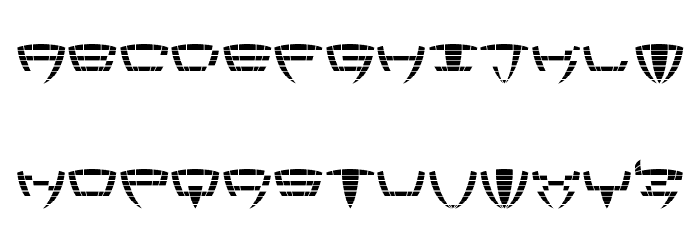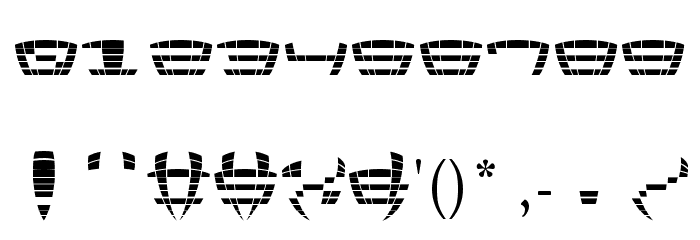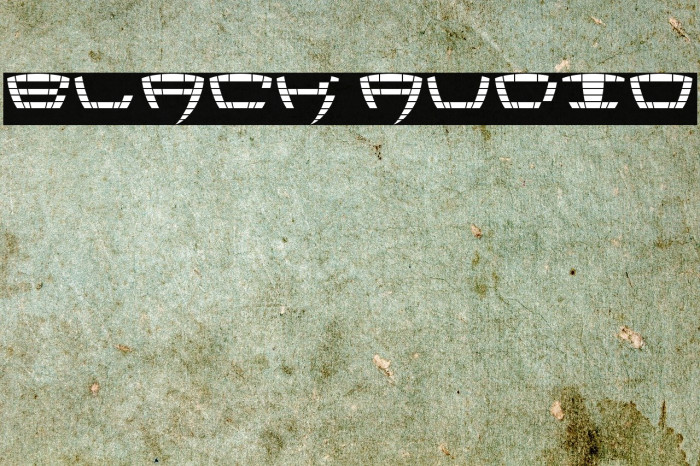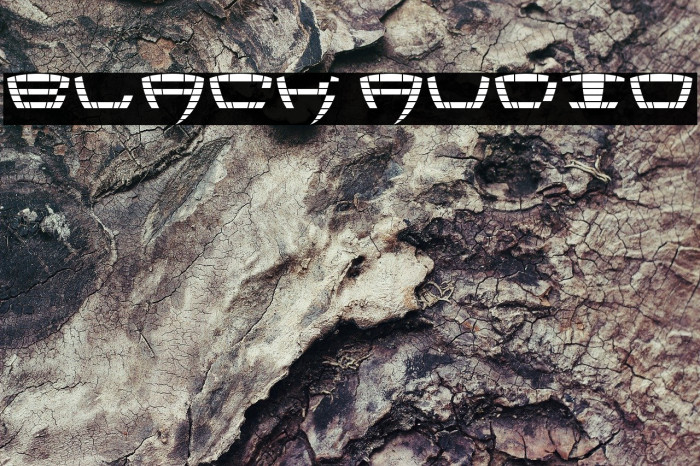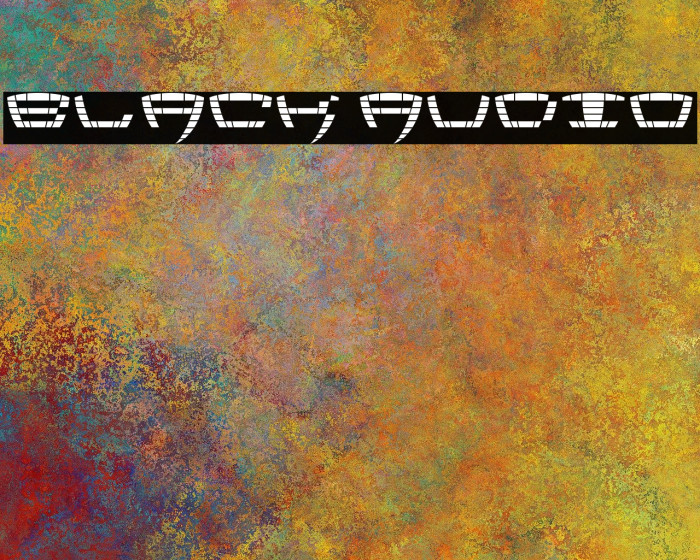
Black Audio Font
This font features a futuristic and digital aesthetic, characterized by its segmented and geometric letterforms. Each character is composed of distinct horizontal and vertical lines, creating a fragmented appearance that resembles digital displays or electronic circuits. The design is bold and striking, with a consistent pattern across uppercase, lowercase, numbers, and special characters. The unique style gives it a high-tech and modern feel, making it suitable for projects that require a cutting-edge or sci-fi theme. The font maintains a uniform width and spacing, ensuring readability despite its unconventional design.
A futuristic, segmented font with a digital and geometric style.
- Proposed Projects: Ideal for tech-related branding, sci-fi movie posters, video game titles, and digital art projects.